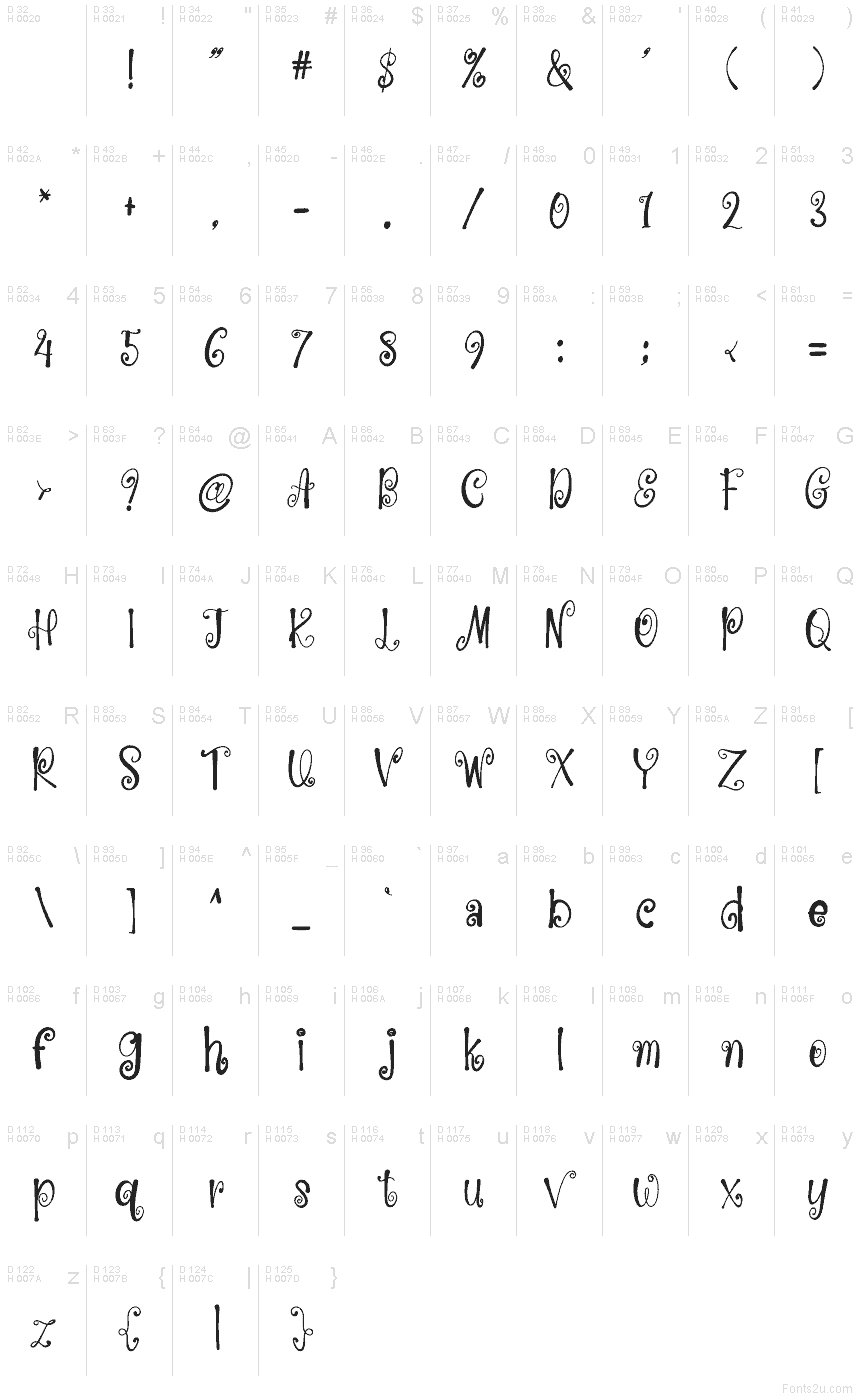
Spooky Crazy
Spooky Crazy font by creatype designer is a free Halloween display font. Loopy curls, wobbling strokes, and inky speckles give it that candy-corn-on-a-windy-night vibe—playful, a little eerie, and wonderfully hand-drawn. The letters bounce with uneven rhythm, so headlines feel alive without turning messy, and those spiral terminals add a storybook chill that reads clearly at larger sizes.
Using Spooky Crazy, your party invitations, trick-or-treat posters, yard signs, classroom printables, stickers, and social posts gain instant October charm. This free font shines on big, bold titles and short phrases where the swirls can breathe. Pair it with a plain, sturdy sans for body copy, and add a touch of letterspacing to keep the curls from crowding.